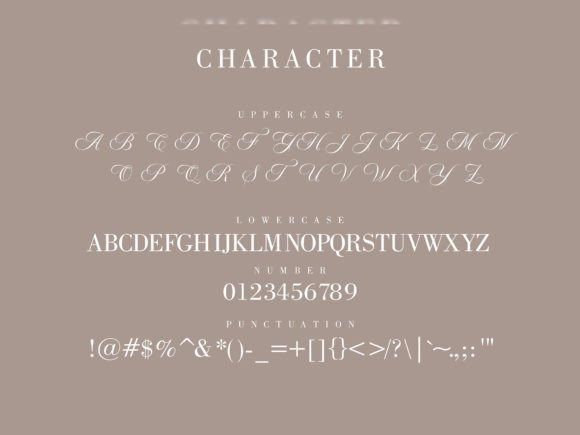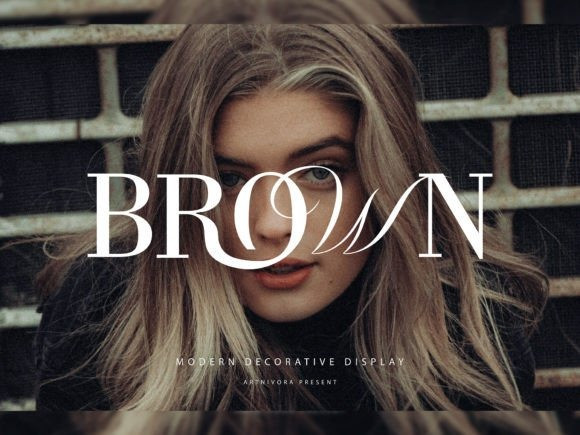
Brown Typeface
Brown Typeface, the epitome of timeless elegance. This unique pairing combines the sophistication of a classy handwritten script with the simplicity of a sleek display font. Whether you’re aiming for refined invitations or upscale branding, Brown Font effortlessly adds a touch of class and versatility to your projects, ensuring your text exudes both charm and professionalism.